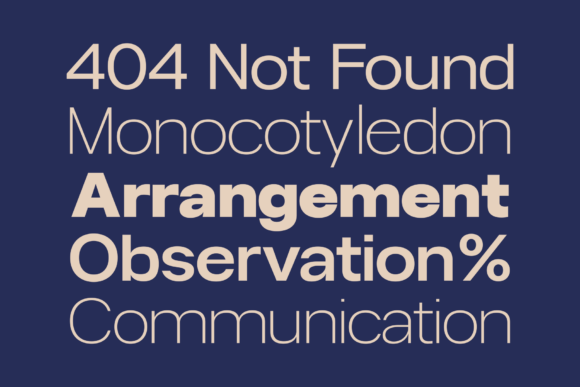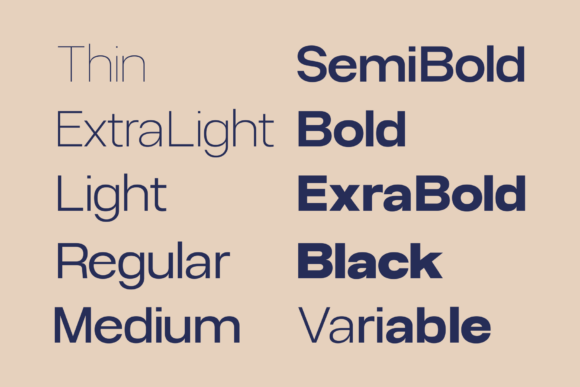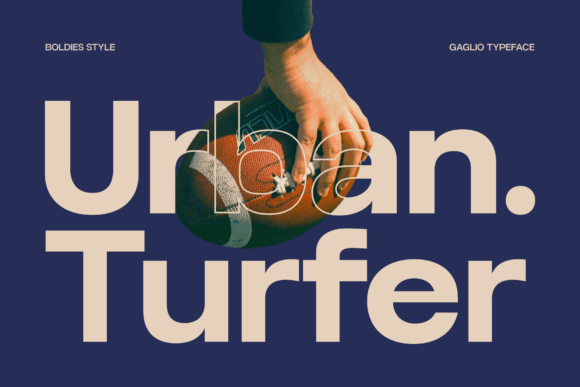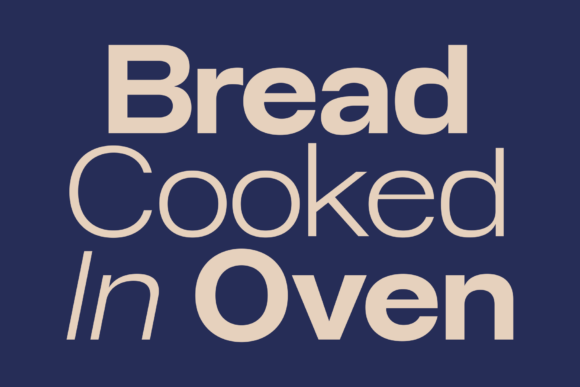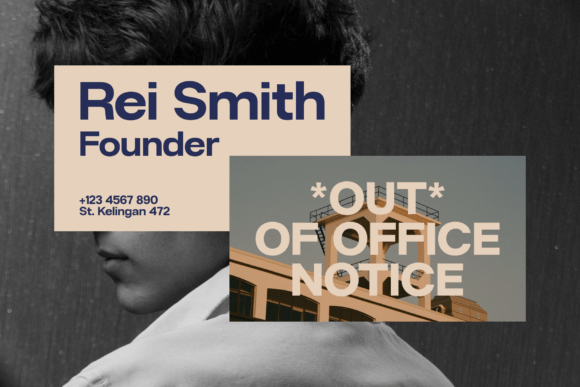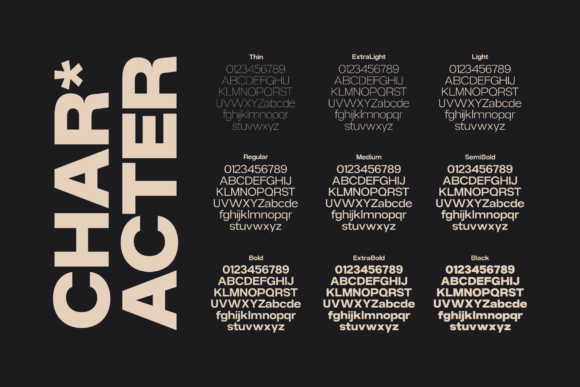
Discover the Power of Gaglio: A Modern Sans Serif Typeface
I’ll never forget the design struggle I faced while working on a high-end corporate branding project. My client wanted a font that exuded professionalism, yet had a modern twist. After hours of searching, I stumbled upon Gaglio – a game-changing modern sans serif typeface that instantly elevated my design. In this article, I’ll share my experience with Gaglio, its features, and how to make the most of this versatile font.
A Personal Review of Gaglio
What I Love About Gaglio ✨
- ✅ Geometric precision and clean, architectural lines
- ✅ Versatile variable weight system and range of styles (regular and italic)
- ✅ Exceptional readability due to large x-height and generous apertures
- ✅ Perfect balance between corporate authority and contemporary minimalism
- ⚠️ Limited availability of certain OpenType features in some platforms
- ⚠️ May require manual kerning for optimal results in certain situations
The Story Behind Gaglio
Gaglio was designed with the goal of creating a modern sans serif typeface that balances corporate authority with contemporary minimalism. Inspired by the geometric precision of architectural lines, Gaglio’s creator aimed to craft a font that would be both versatile and sophisticated.
| What makes Gaglio suitable for corporate branding? | Gaglio’s geometric precision, clean lines, and versatile weight system make it an excellent choice for corporate branding, as it exudes professionalism and sophistication. |
| Can I use Gaglio for digital interfaces? | Yes, Gaglio is designed to be highly legible on digital screens, making it perfect for tech startup logos, mobile interfaces, and editorial layouts. |
| Is Gaglio available in italic styles? | Yes, Gaglio includes both regular and italic styles, providing a polished look for a wide range of design applications. |
| Can I use Gaglio for high-end editorial designs? | Absolutely! Gaglio’s exceptional readability and sophisticated feel make it an excellent choice for high-end editorial layouts, such as magazines and newspapers. |